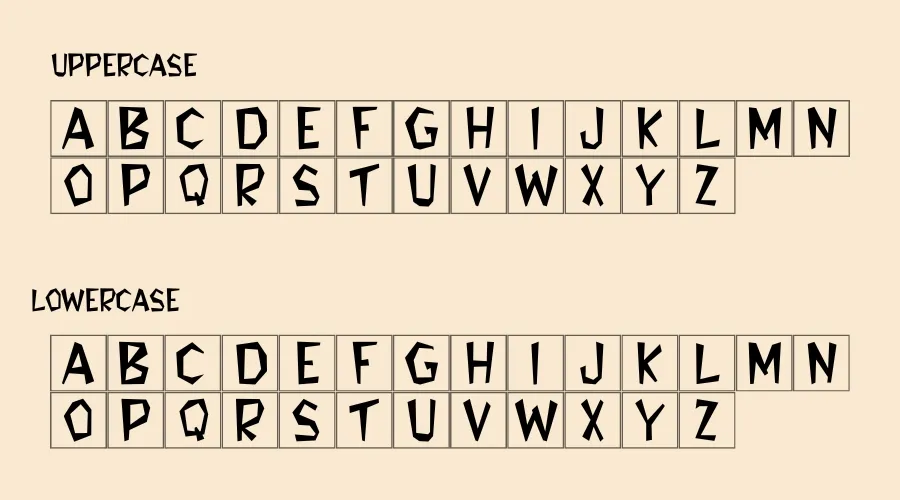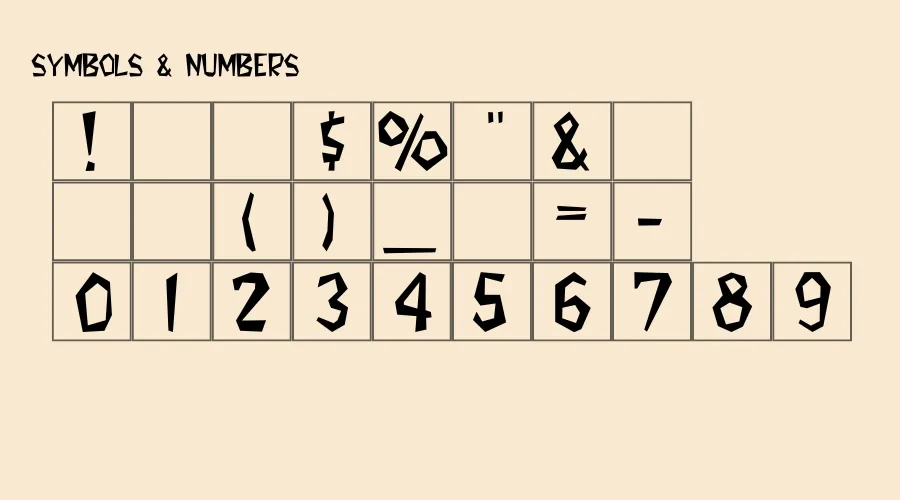
Flintstone Font
About Flintstone Font
A famous typographic developer by the name of Peter S. Bryant presented the Flintstone Font.
It belongs to the classification of cartoon font family and has a unique texture that suits it for a mixture of designs and uses.
This font is ideal for all projects because of its copy-and-paste functionality. It is compatible with the Looney Tunes Font. There are various styles and weights of the typeface available. This font includes uppercase, and lowercase letters, symbols, numerals, digits, and punctuations.
It has many features that make it special, like its extensive range of glyphs. This typeface is multilingual and protects many extra languages, which is why it fast increased to prominence in the font society after being released. It works well with CSS and Adobe Photoshop.
Name Flintstone Font
Designer Peter S. Bryant
Style Cartoon
• Flintstone Regular
• Flintstone Bold
The pairing quality of this font is special and can be reached with multiple other fonts such as;
Pairing it with Taviraj Font: It is a simple and outstanding typeface. This font is perfect for pairing functions and if you need a more modern look to your designs then use this typeface with Flintstone Font.
With Gypsy Curse Font: This font has an excellent texture look impression for the viewers. so that it is perfect for multiple purposes and can be compared with the Flintstone Font.
Pairing it with Shallow Grave BB Font: It is a unique serif font and is similar to this font but has a more regular feel. It has outstanding pairing quality.
What type of Font is Flintstone Font?
This typeface is a member of the cartoon typeface family. It has a very elegant and eye-catching texture look impression for the spectators.
Who is the designer of Flintstone Font?
A famous typographic developer by the name of Peter S. Bryant presented the flintstone font.
What font is closest to Flintstone Font?
The closest font to this great typeface is Princess and the Frog Font and can contract new modern projects with this font.